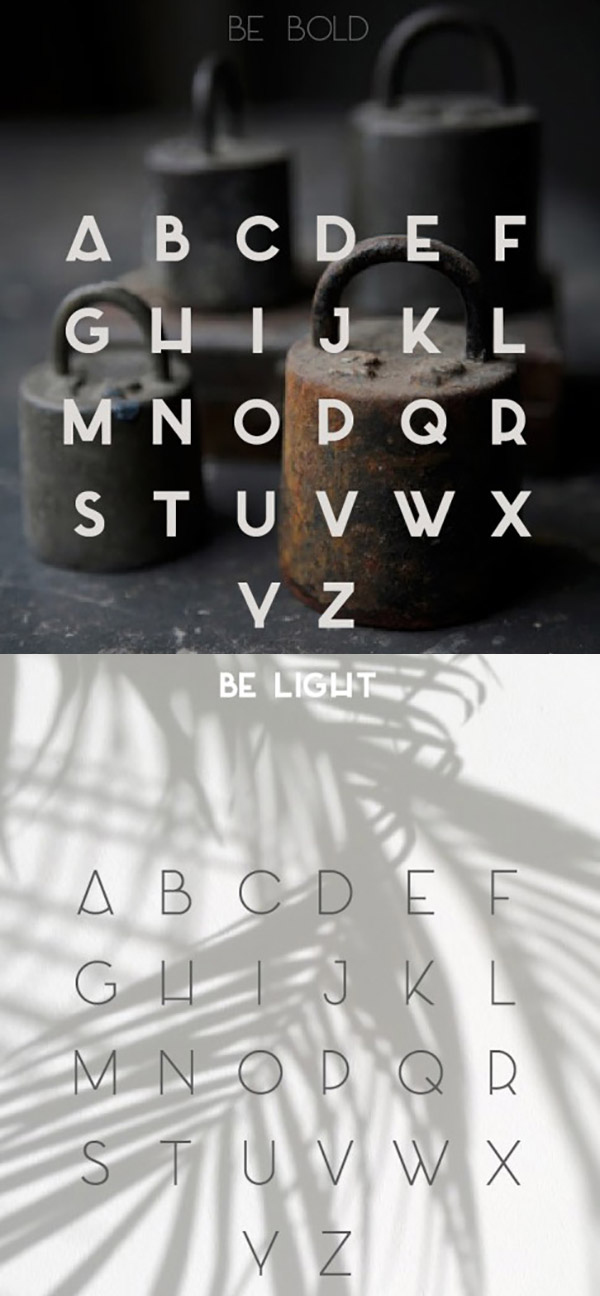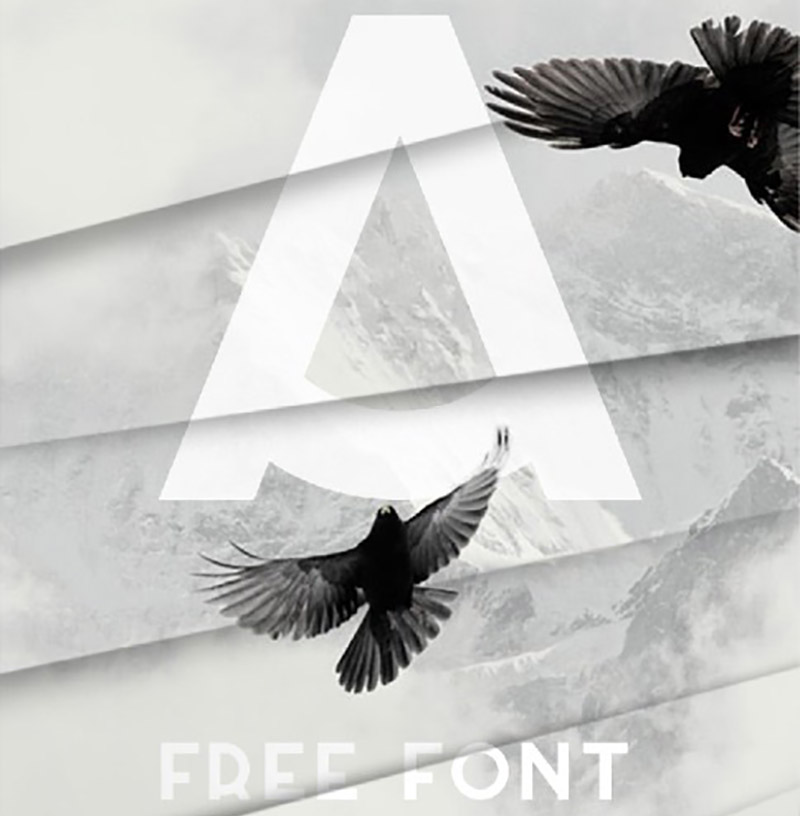
Beautiful elegant sans serif Azedo font is here for all graphic designers and typography lovers. Use the font as logotype or in other graphic design projects. The package includes regular and bold versions. Grab this free font and don’t forget to share it.